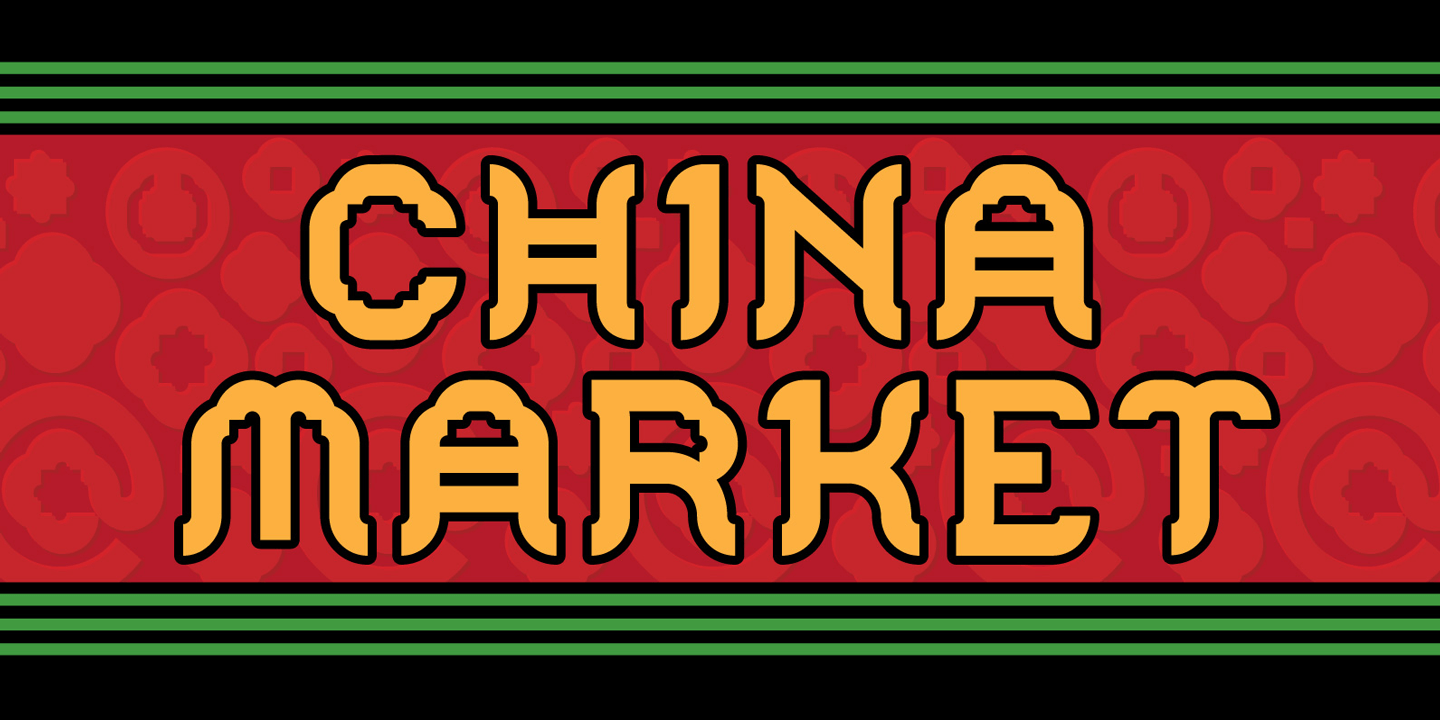
China Market
The initial characters in China Market were created in 1996 for a logo featuring the Temple of Heaven in Beijing where emperors from the Ming and Qing dynasties worshiped heaven and prayed for abundant harvests. The font was completed in 2010.
It is composed of a regularly positioned curved and straight components as if part of a decorative grillwork or other architectural detail. While its influences and origins are clear, its appearance is relies more upon the geometry of its basic elements and the modular structure than a specific stylistic idiom.